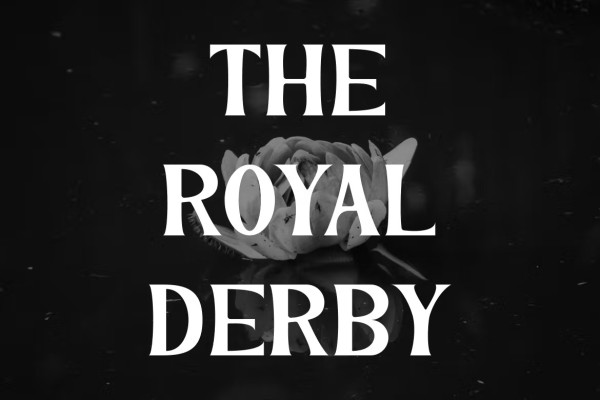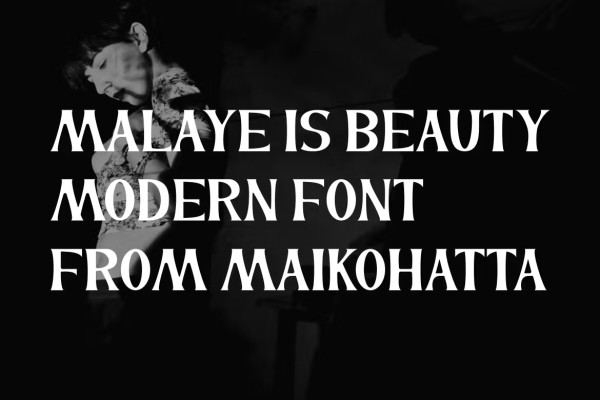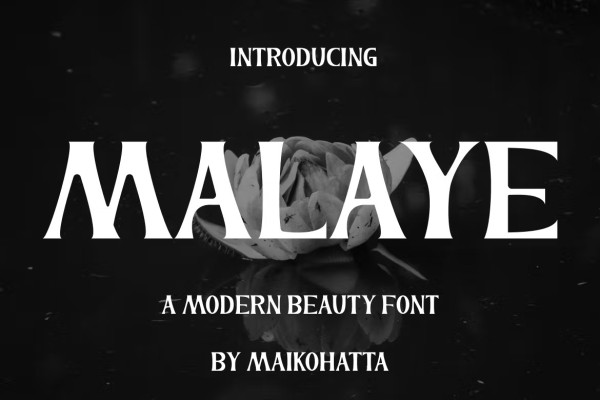
Malaye Font
Malaye Font – Modern Font is a bold and authentic display font. The font is suitable for any branding project such as logo, Template design, esports, etc. She is exceptional in a wide range of contexts